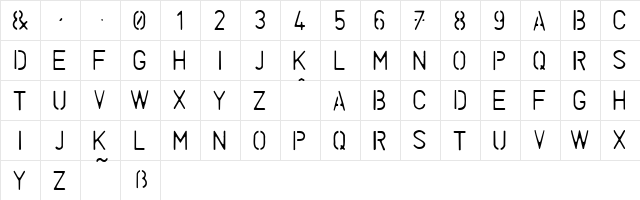
Mould Regular
Design Context for Mould Typeface
Mould is a composed and adaptable typeface that performs quietly and consistently across a wide range of design contexts.